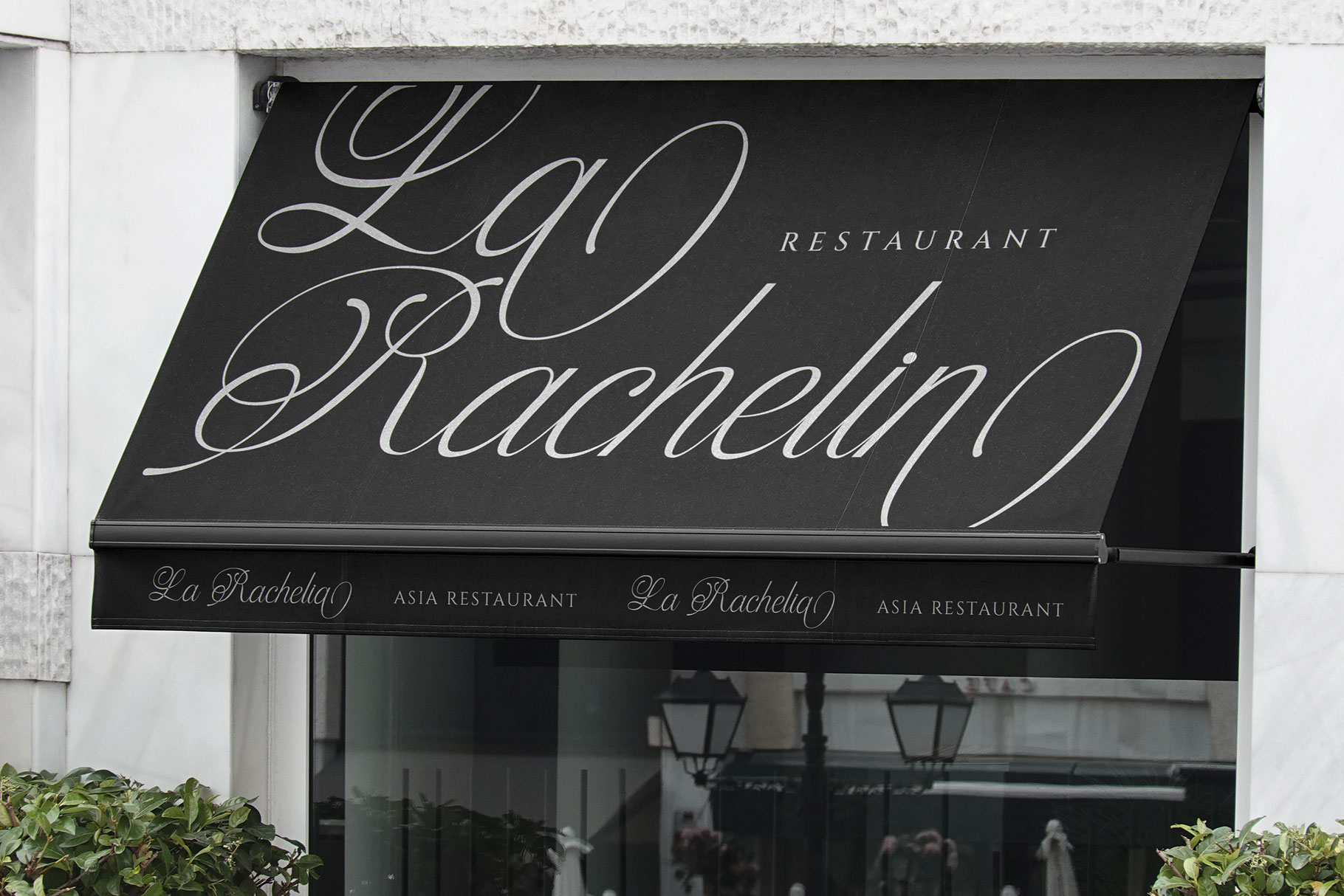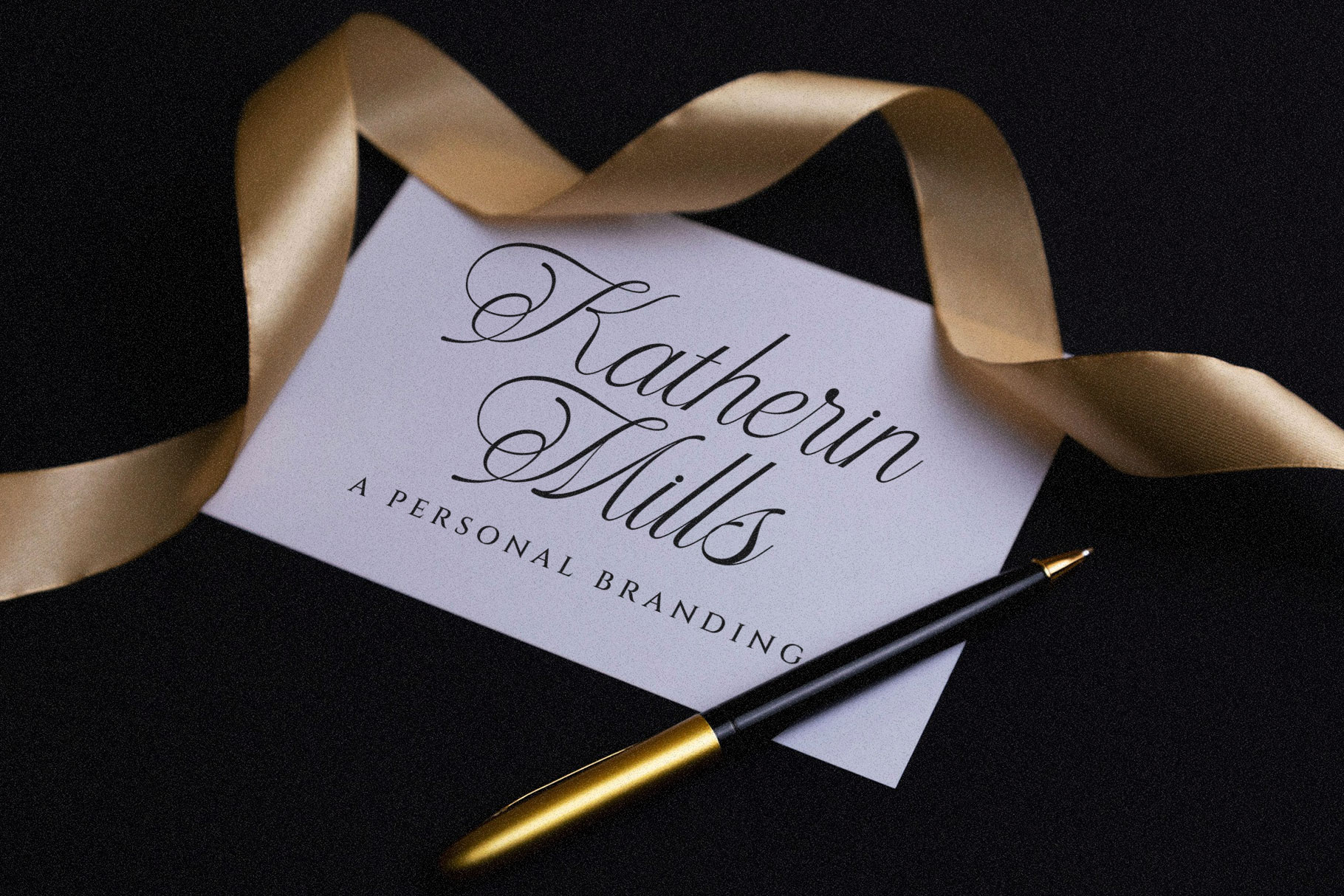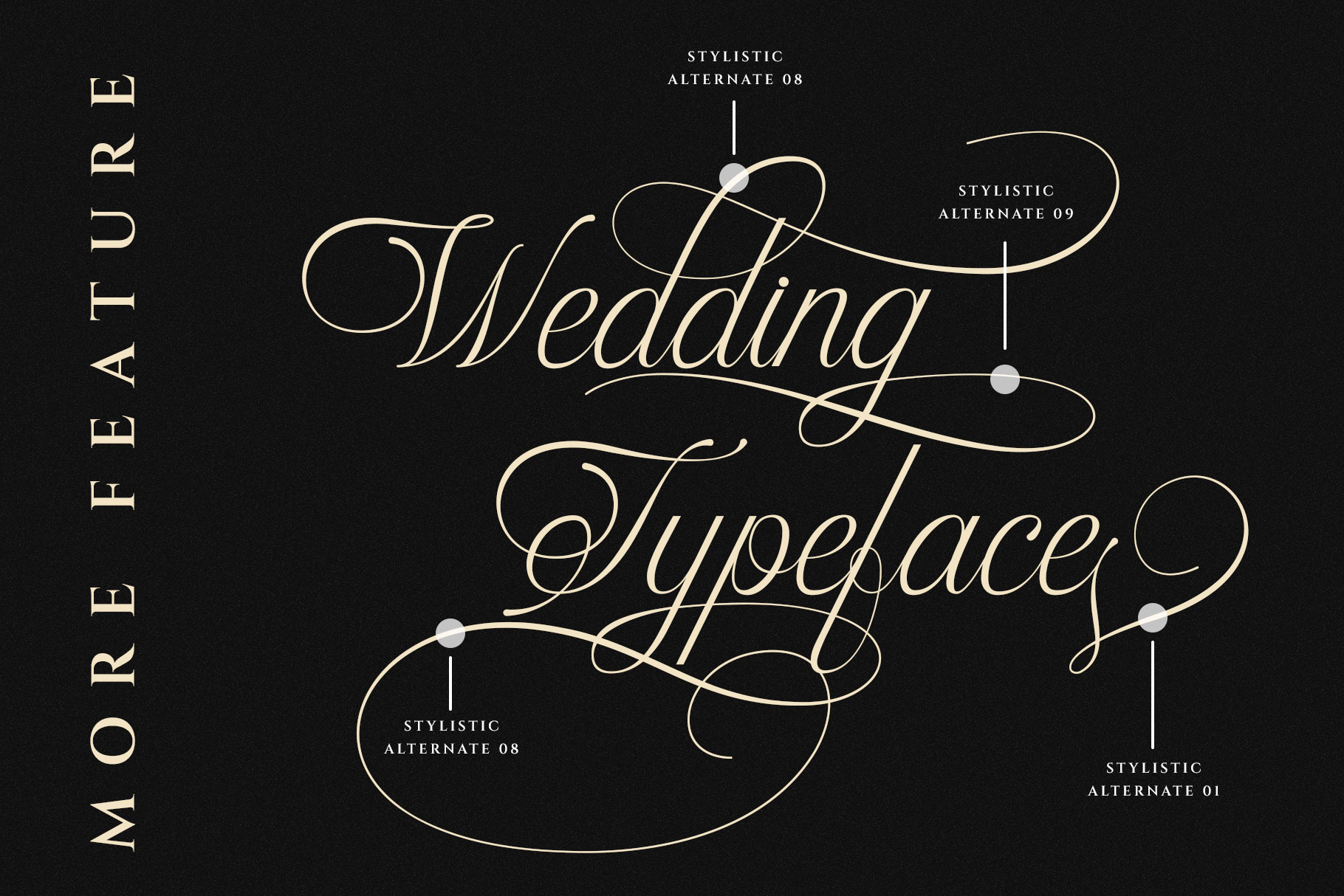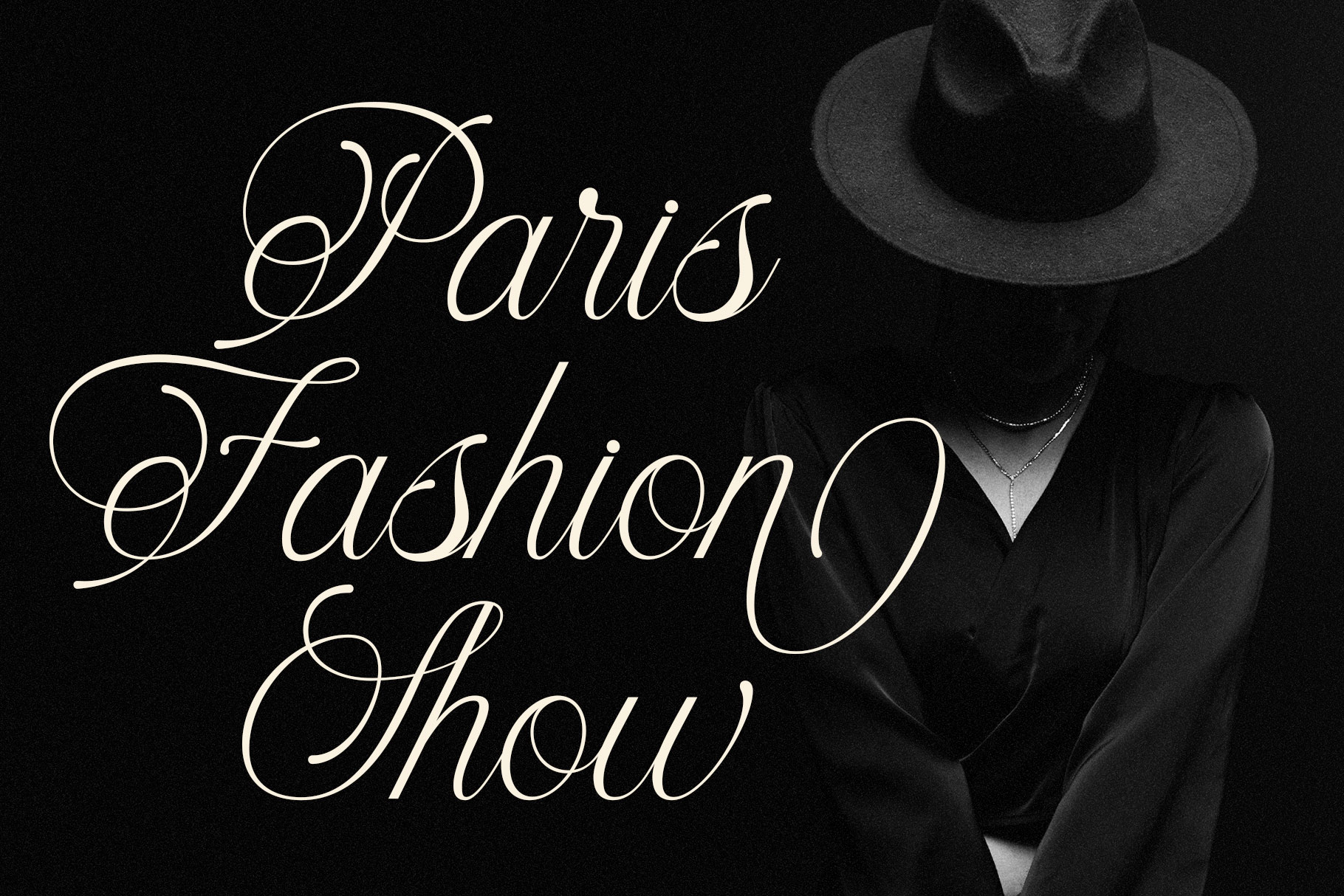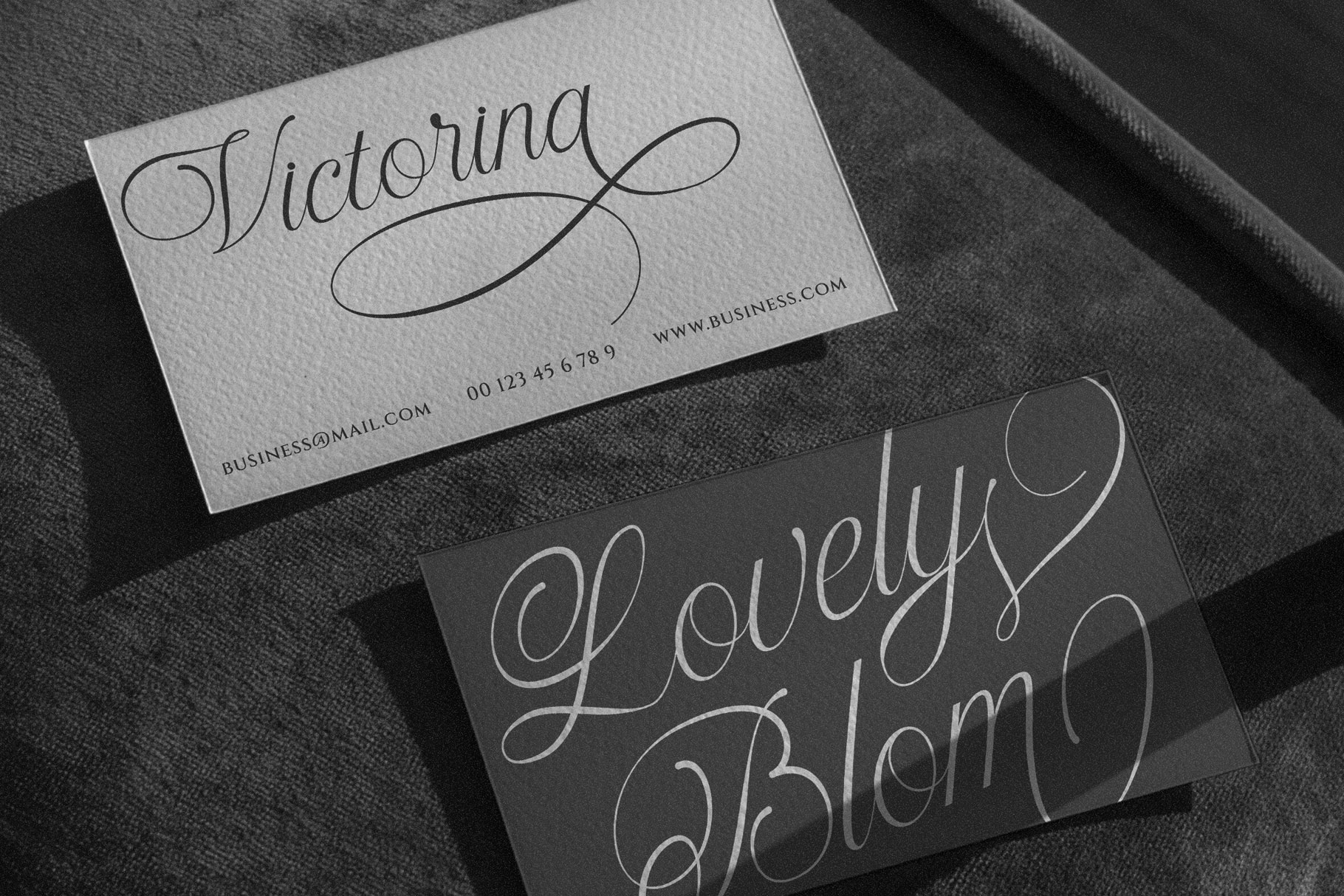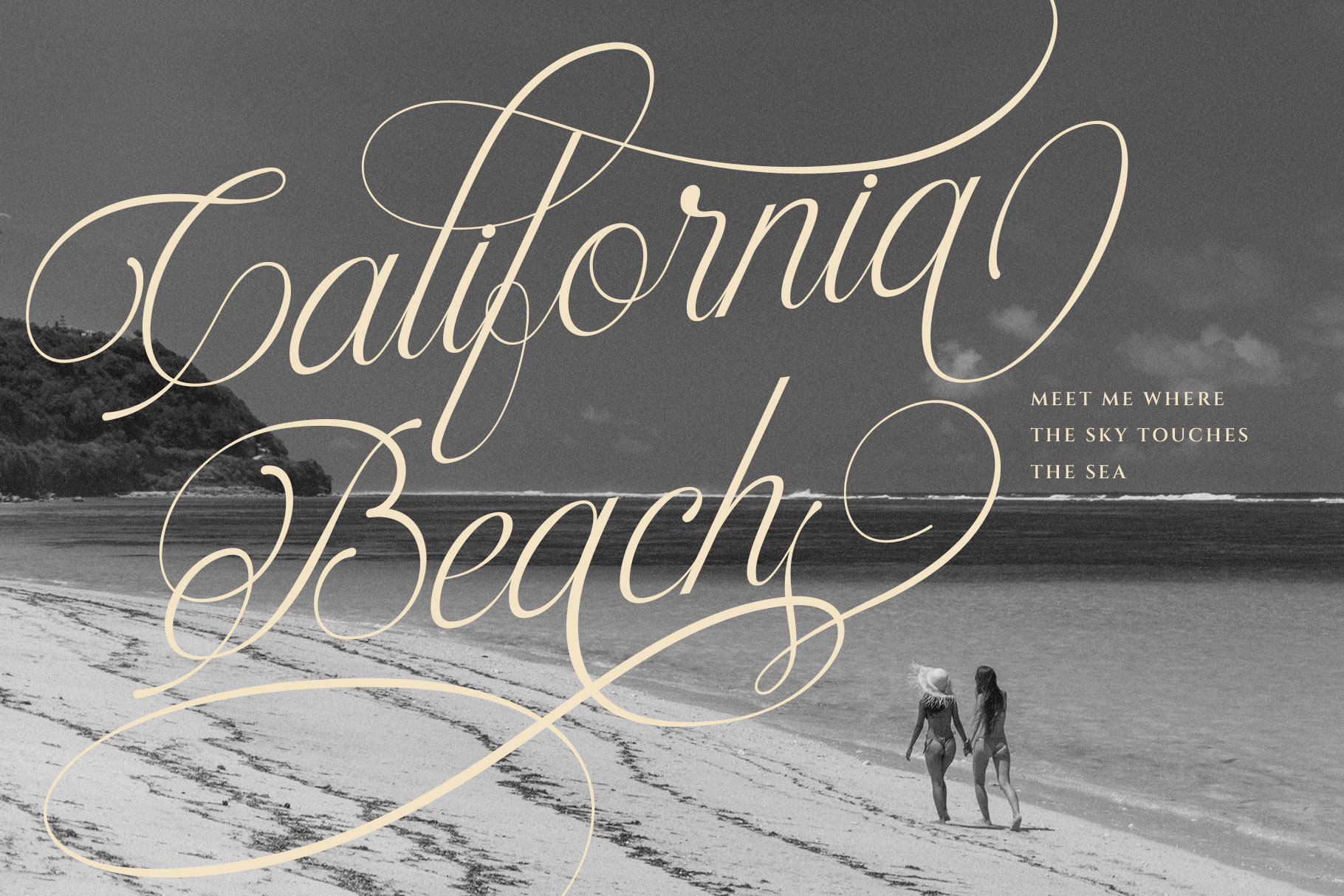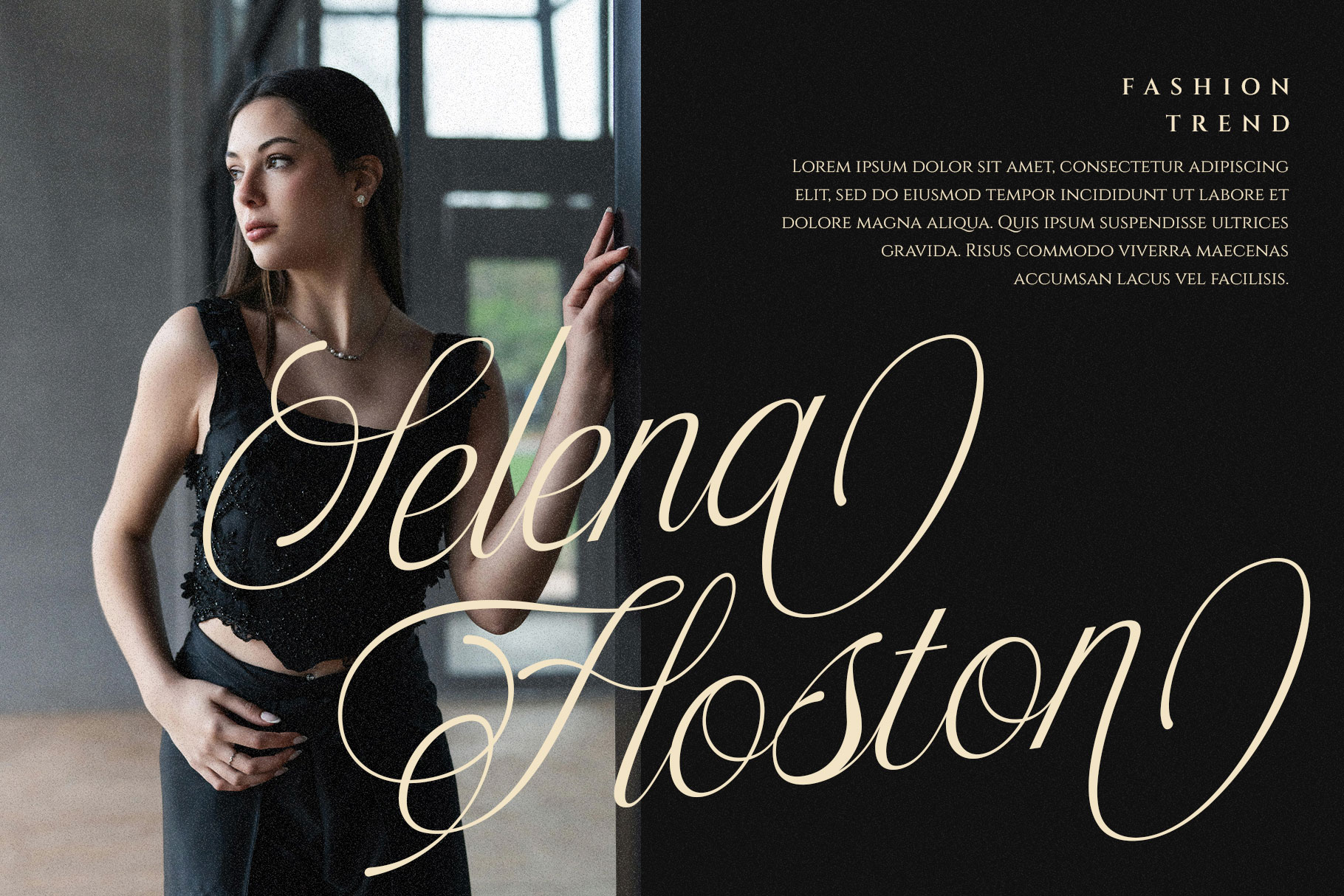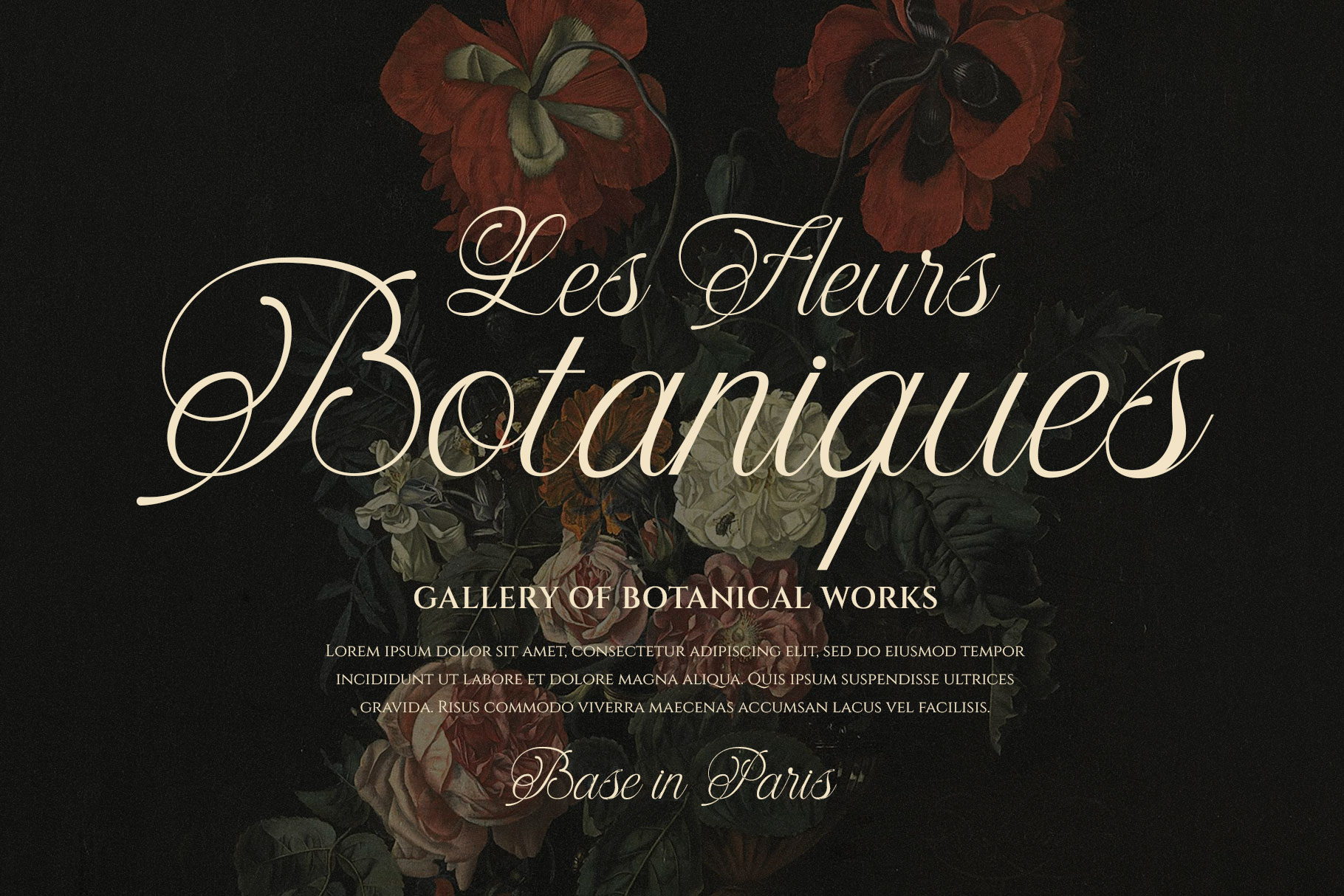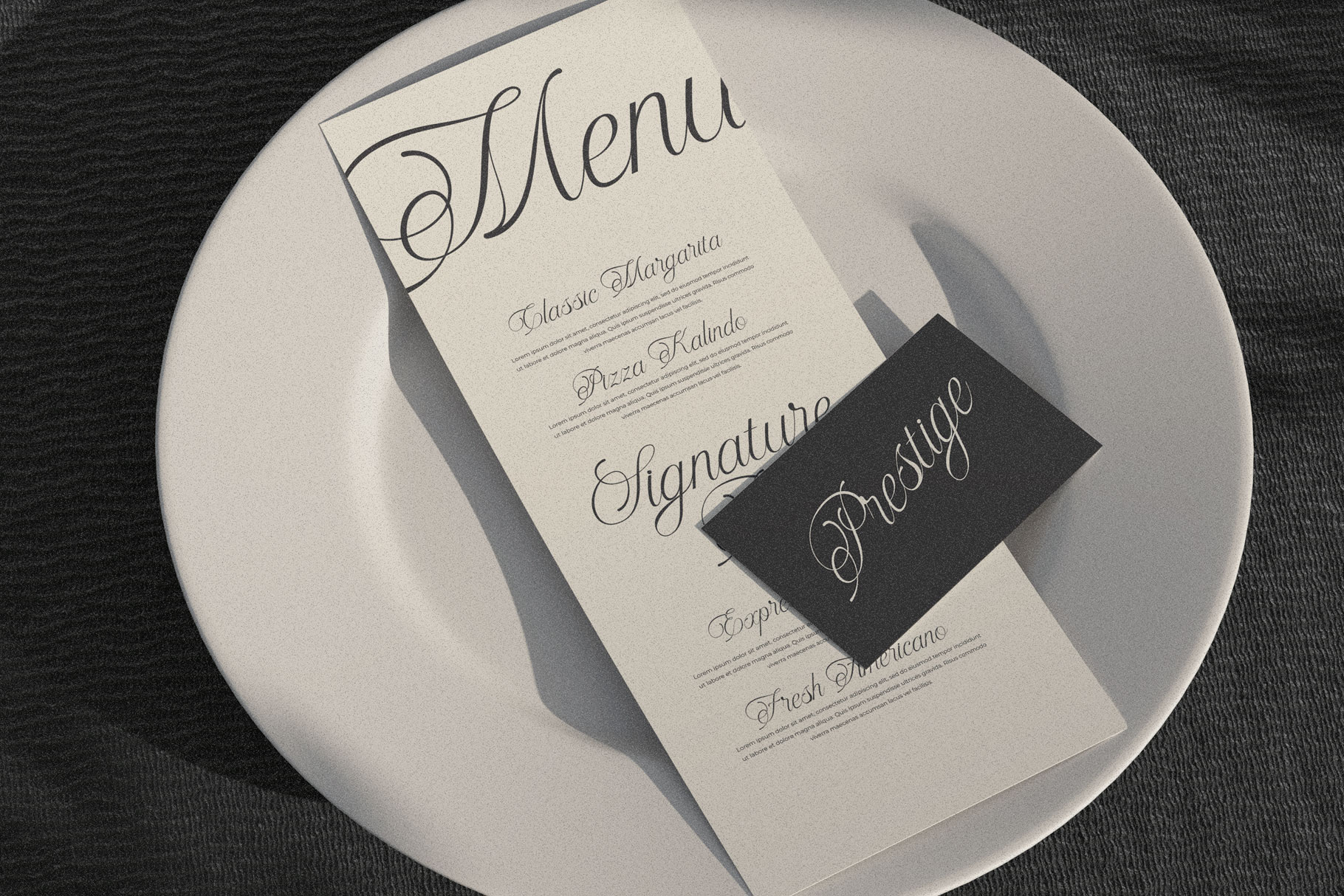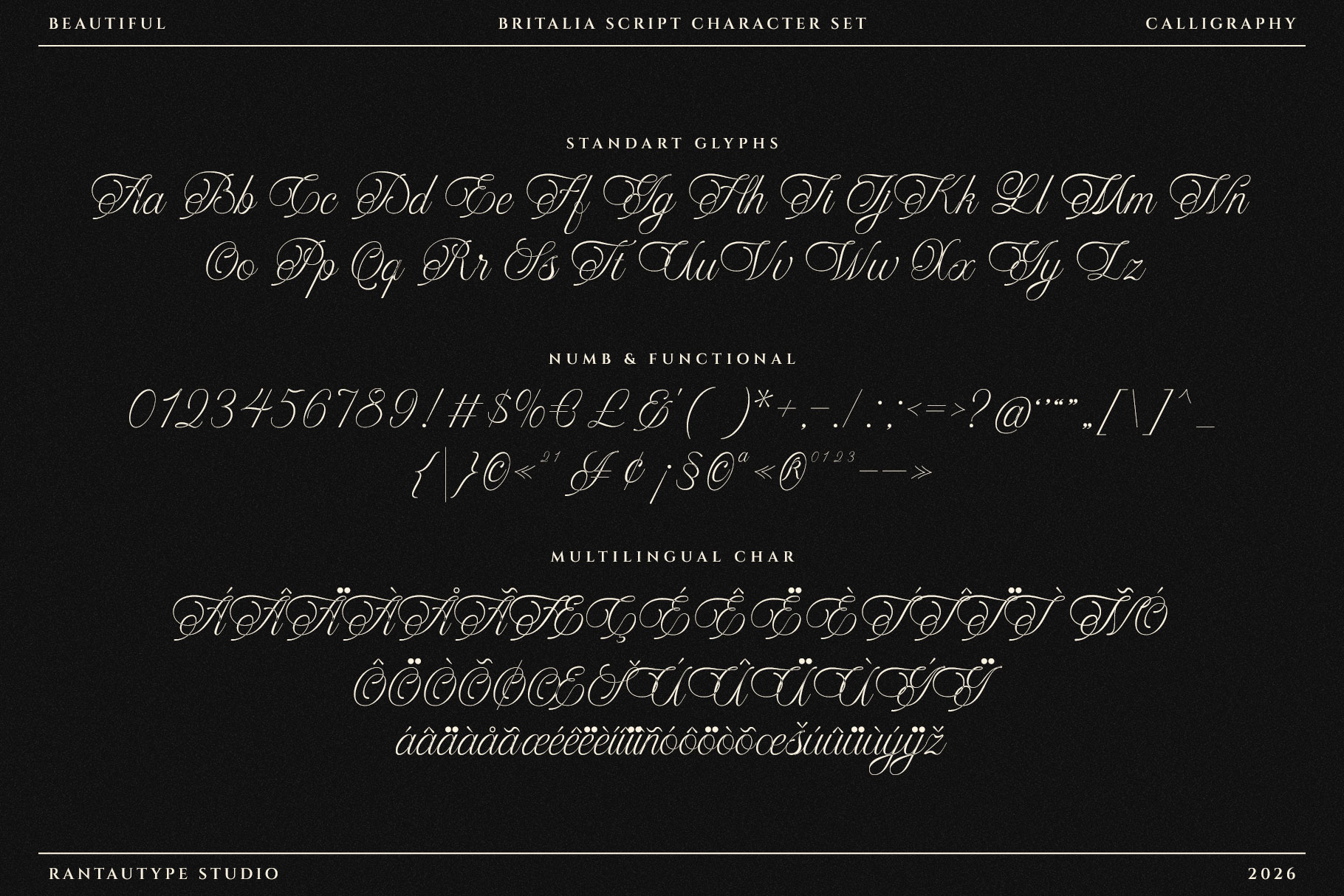
Britalia Script Elegant Calligraphy Font
Britalia Script is captures the timeless elegance of handwritten artistry, blending graceful curves with expressive strokes to create lettering that feels both personal and refined. Britalia Script come with delicate balance, where thick and thin strokes work harmoniously to produce a natural and elegant appearance.
Britalia Script is a perfectly choice for any creative endeavor, creating, modern, lifestyle design such as logotype, title, cover, branding, invitations, wedding designs, display and magazine, social media posts, advertisements, printed quotes, product packaging, corporate brand, product designs, labels, photography, watermarks, special events and any other project with calligraphy touch.